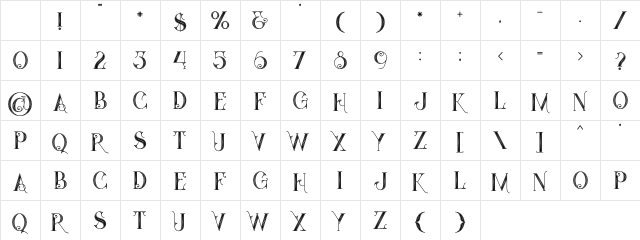
Complete Star Black Inline glyph index. Displaying only characters natively supported by Star Black Inline font.
Star Black Inline is built around its visual character rather than neutral utility - its distinctive forms are designed to make an impression at display sizes.
Font Pairing: Pair with a clean neutral sans-serif for body copy to let Star Black Inline's character lead without overwhelming the composition.
Pro Tip: Use Star Black Inline exclusively at display sizes - it was designed to be seen, not read at length. Let a neutral companion handle body copy.